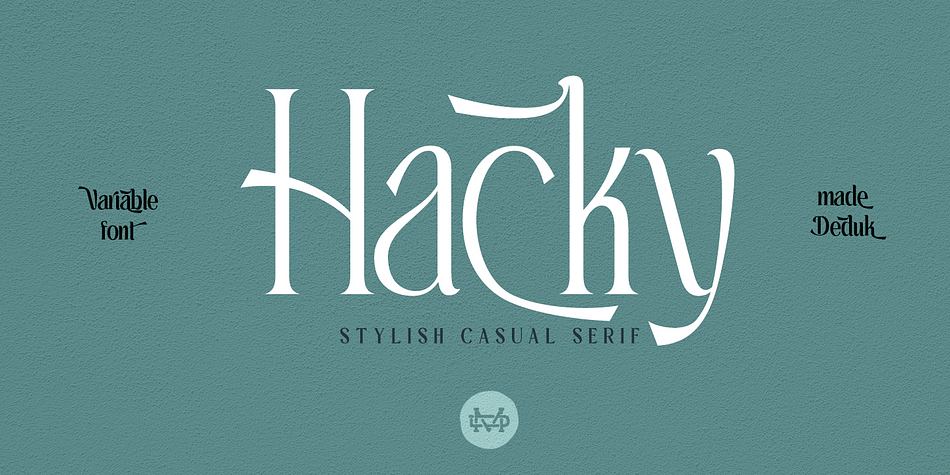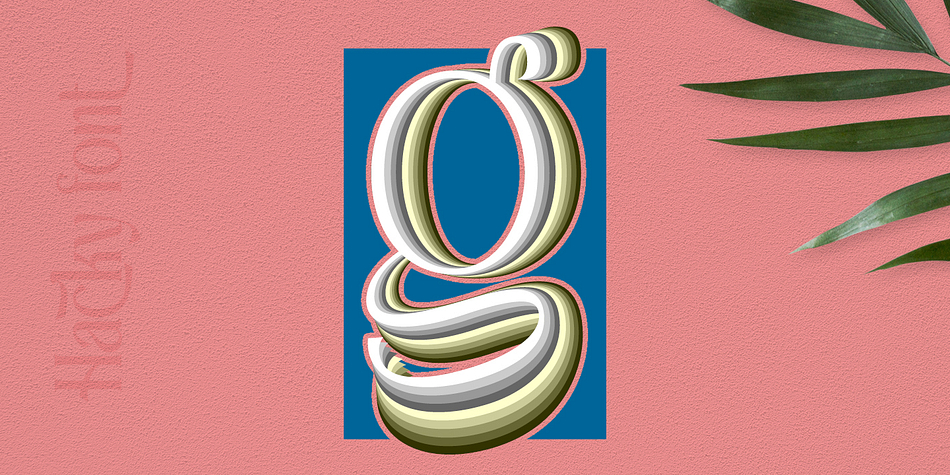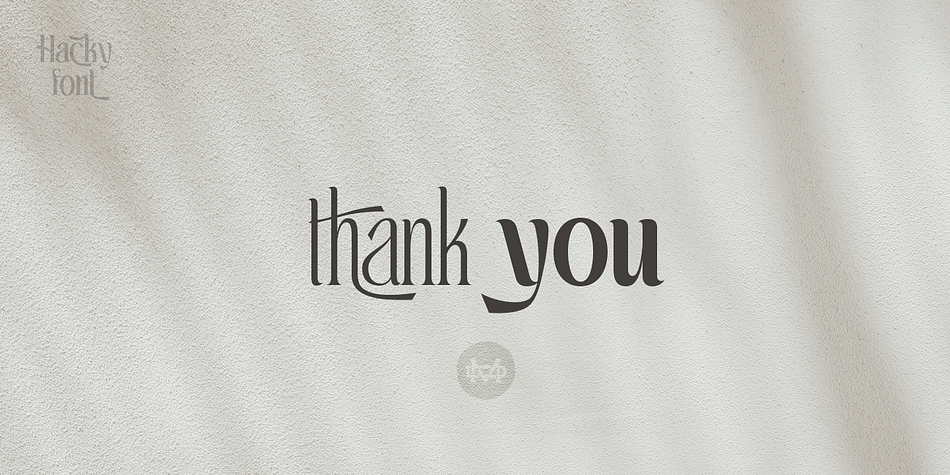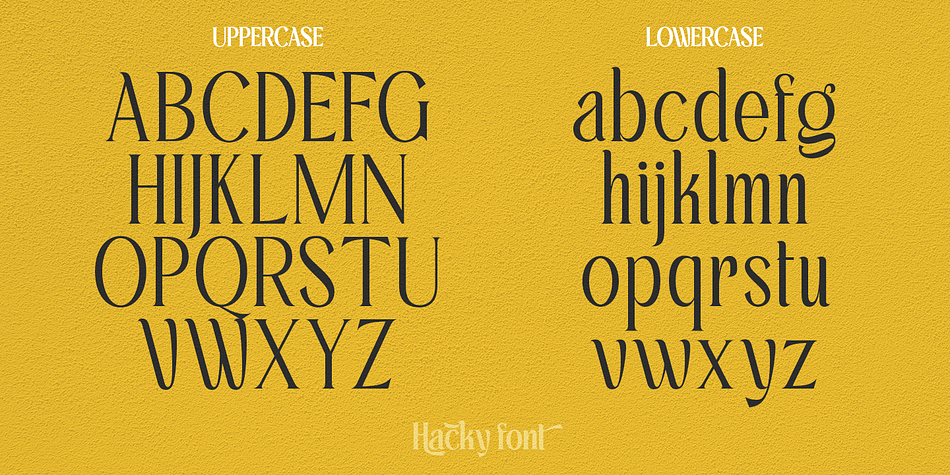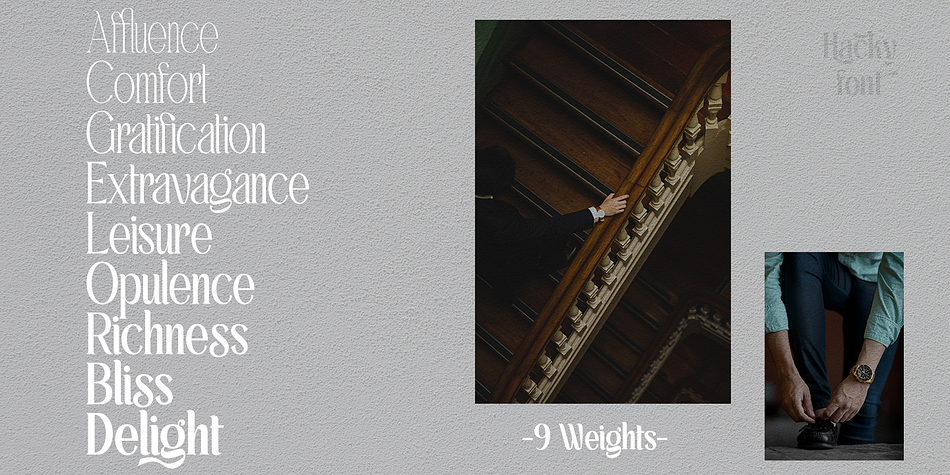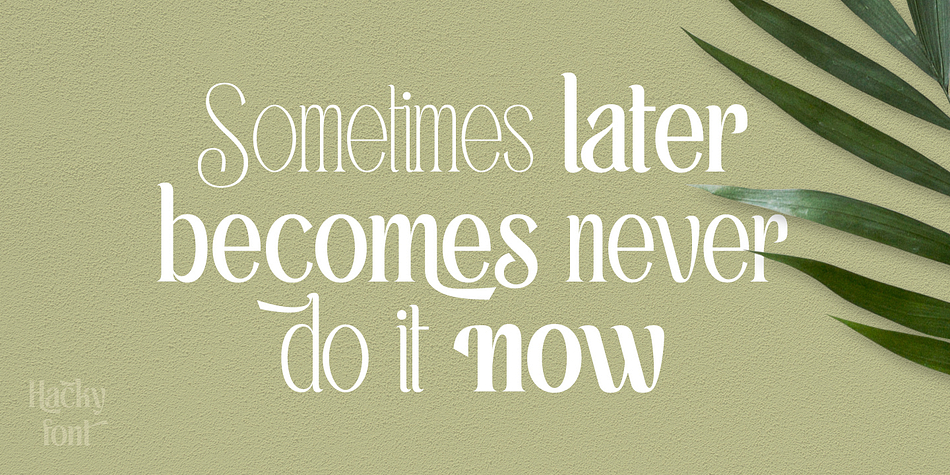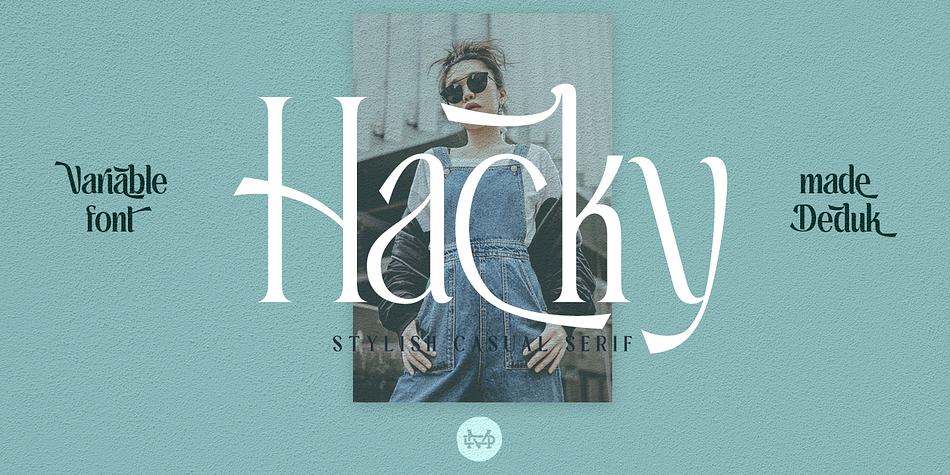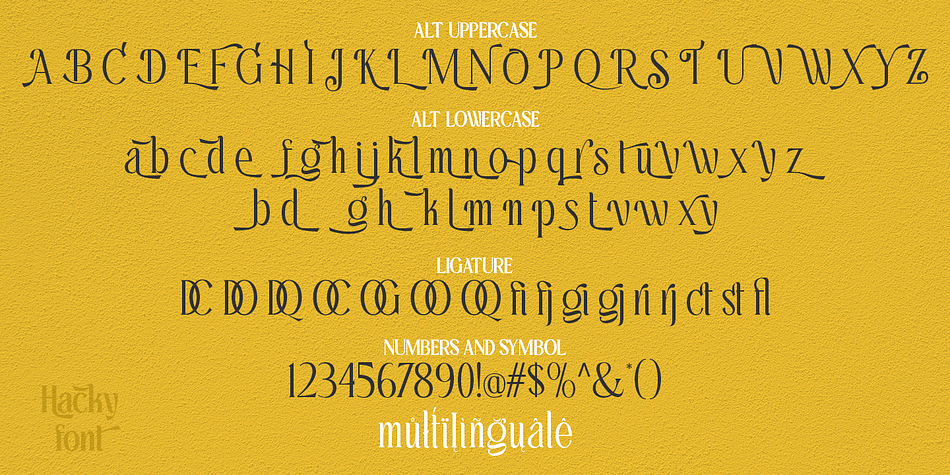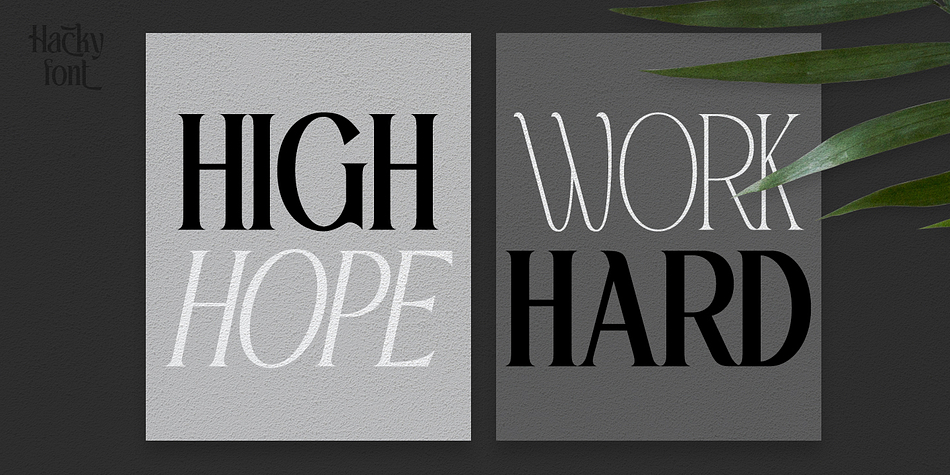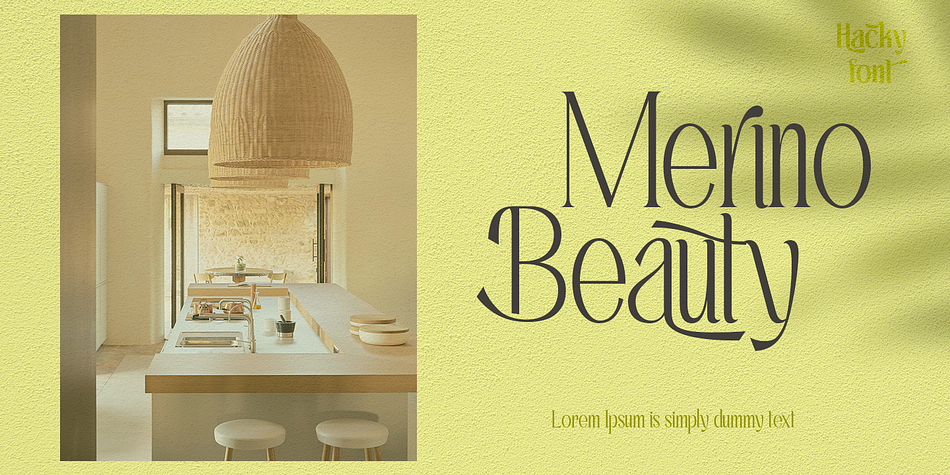
Designed by Suandana Ipandemade, Hacky is a display serif font family. This typeface has eighteen styles and was published by madeDeduk.
Hacky is a stylish luxury serif family. It’s clean and have the smooth angle with 9 variable weight and much alternative inside.
Suitable to create any branding, product packaging, invitation, quotes, t-shirt, label, poster, logo etc.